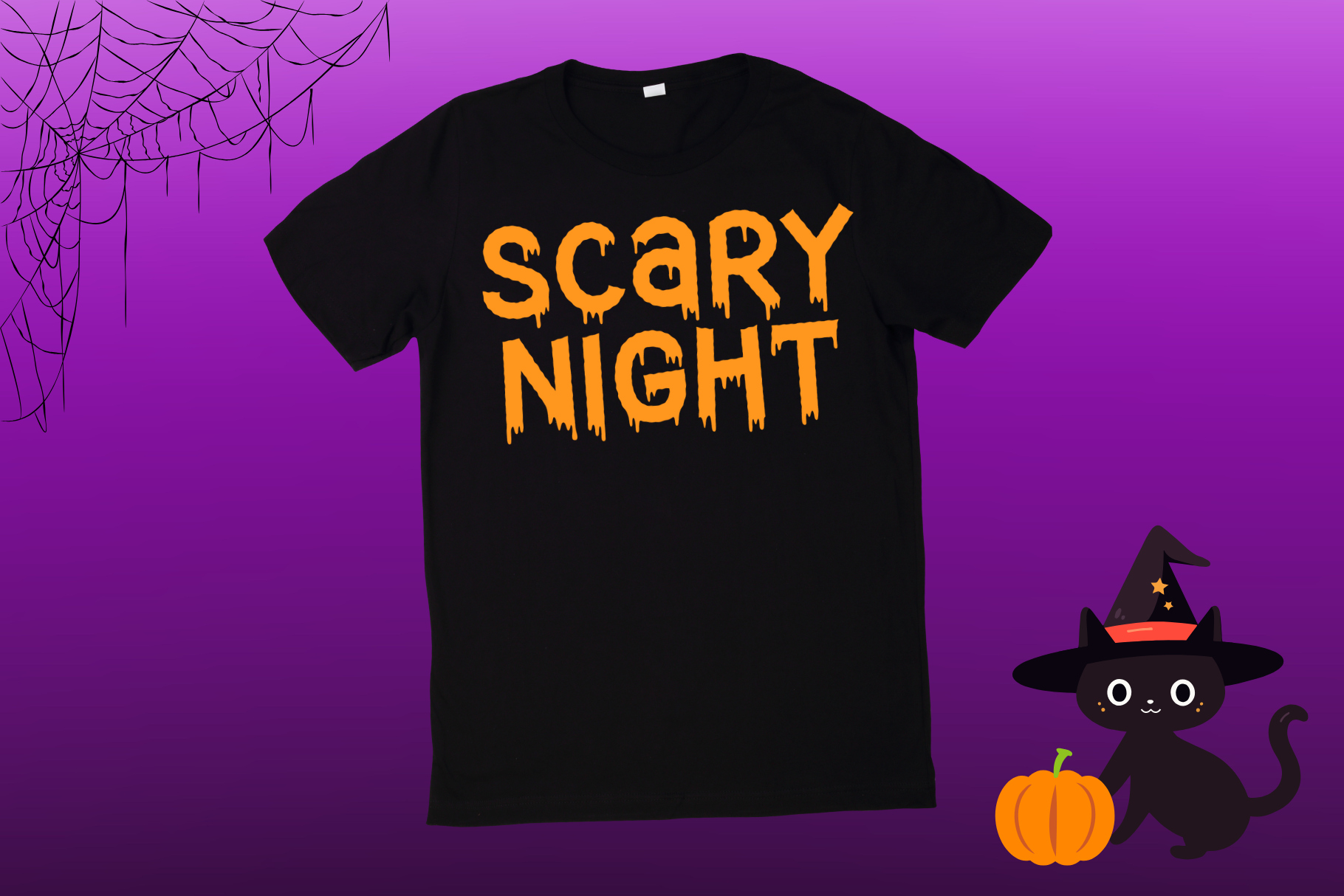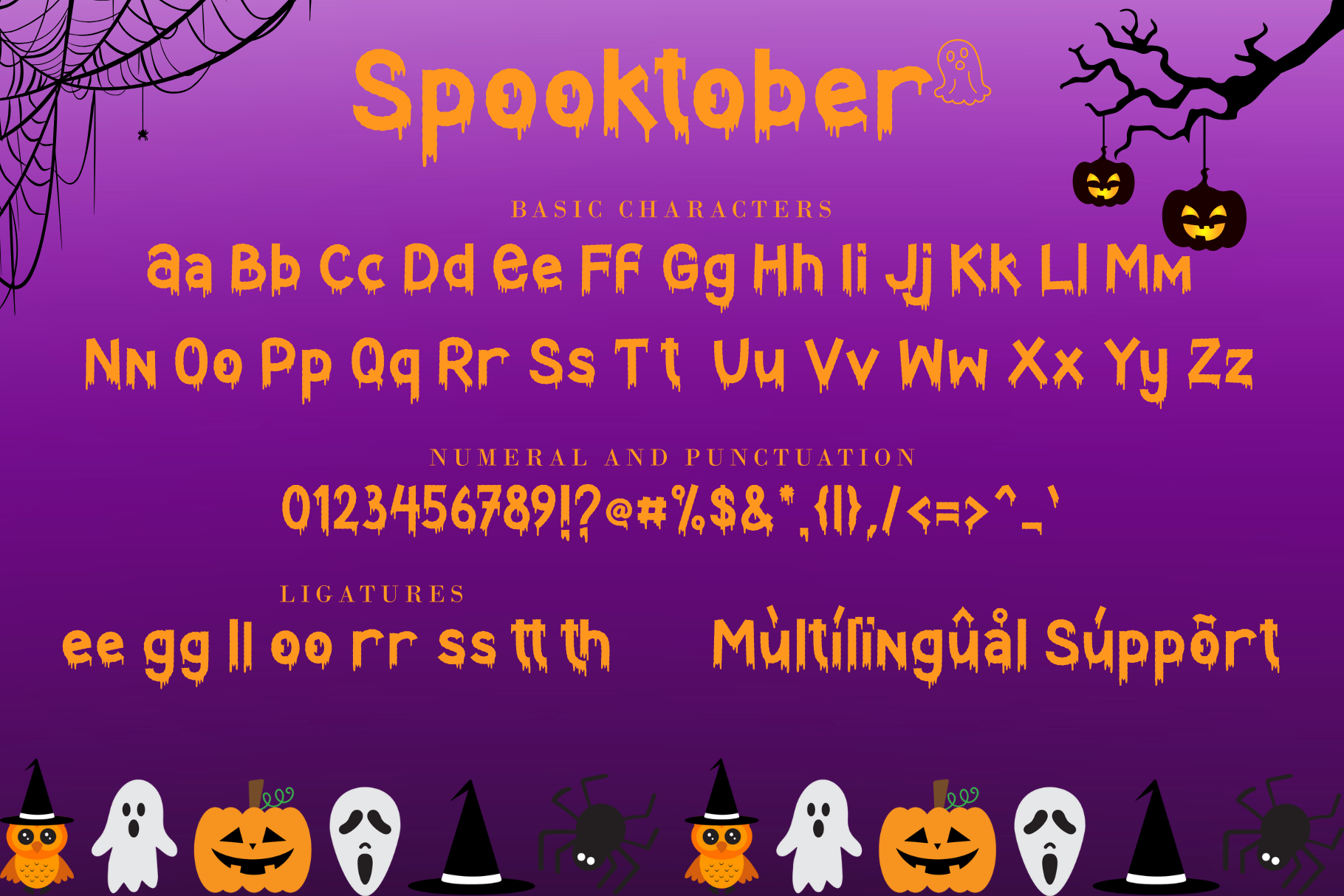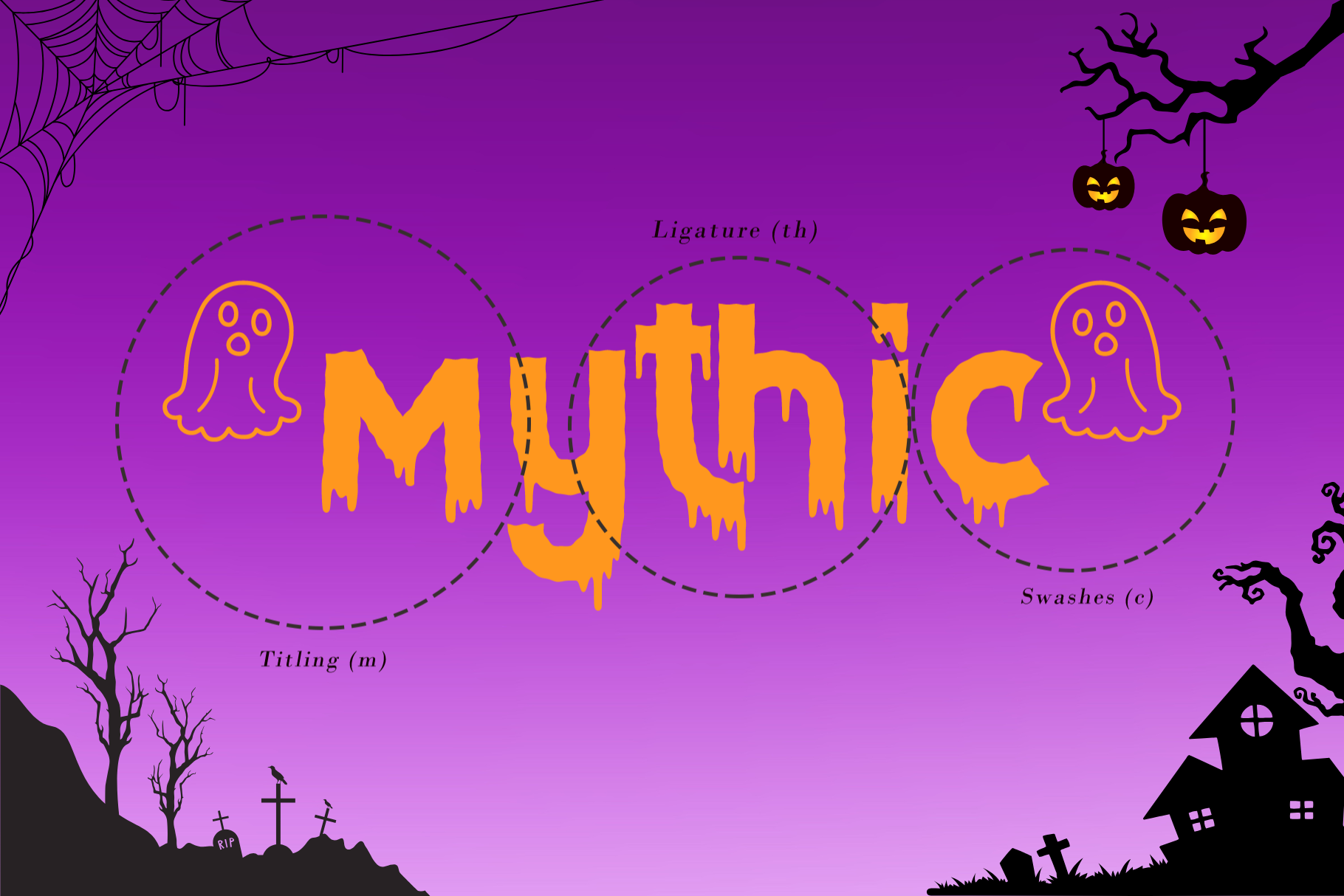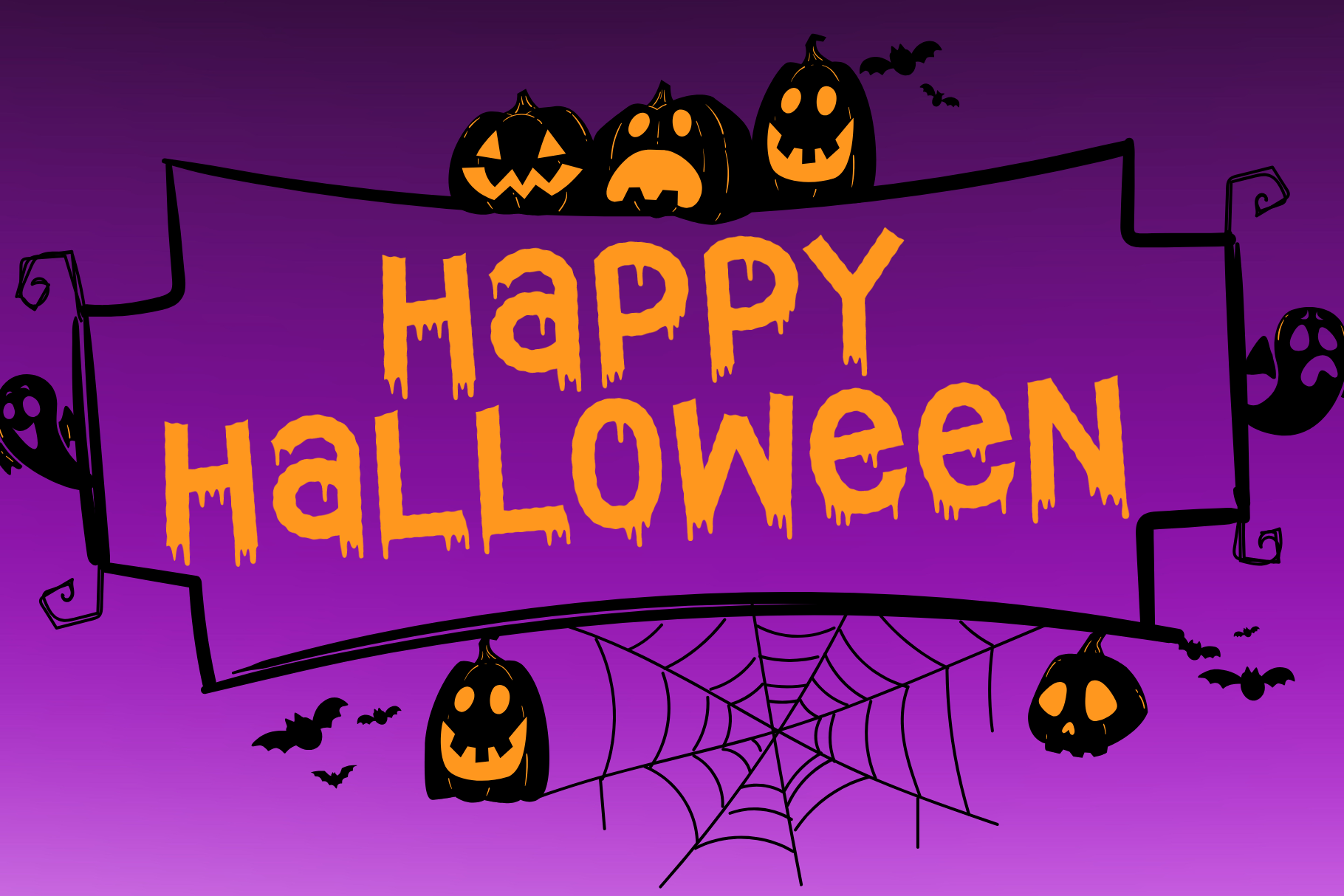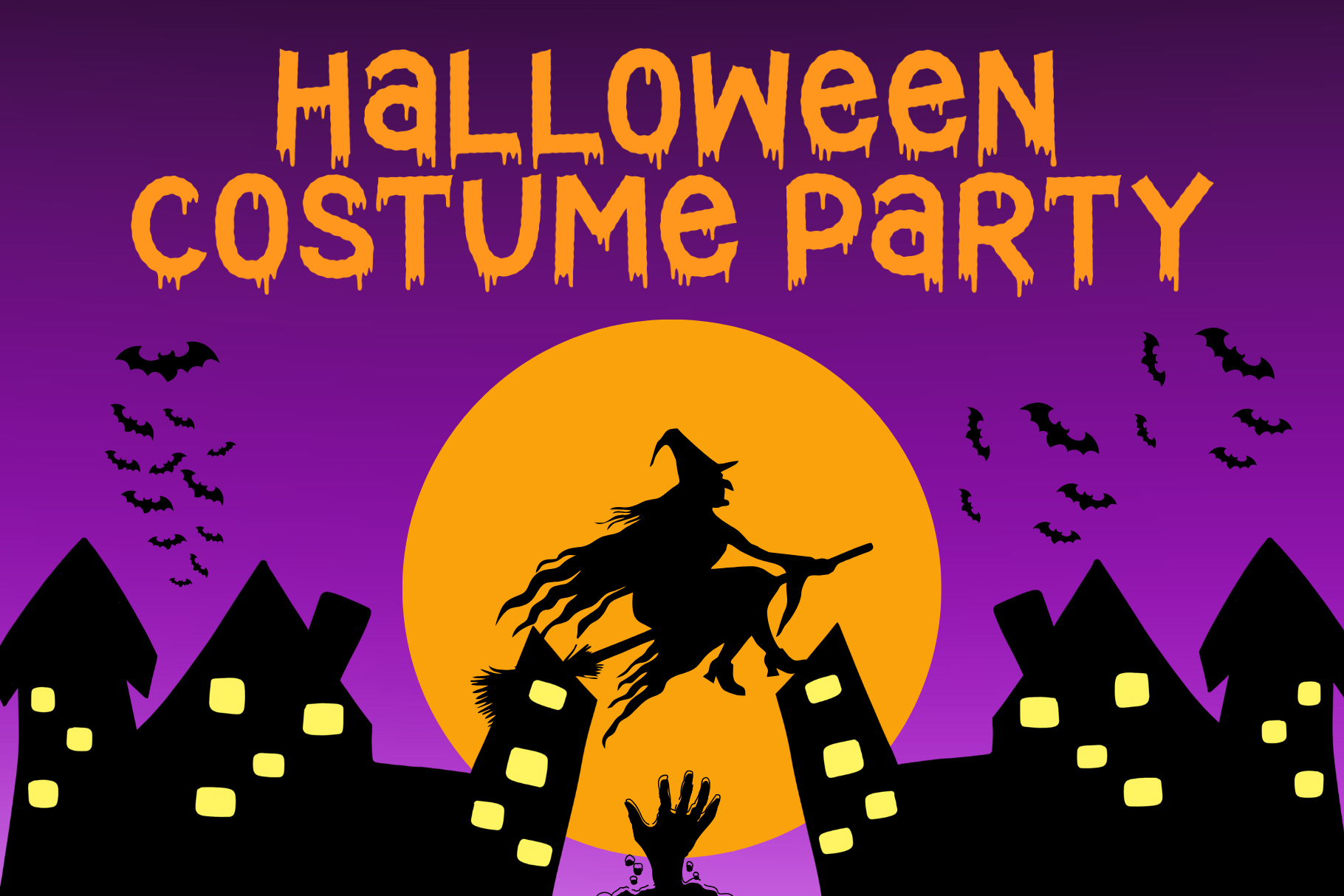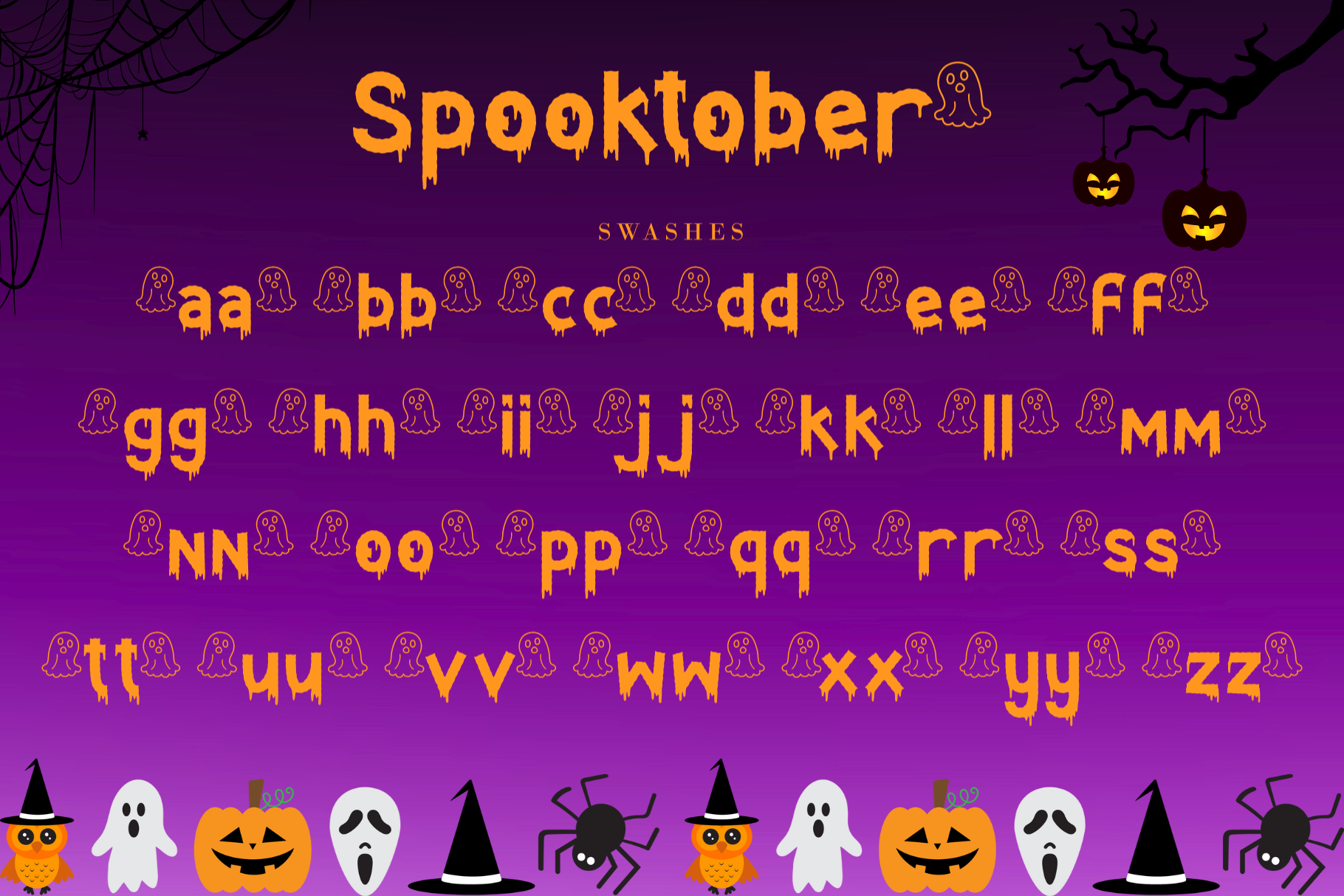
Say hello to Spooktober, the quirky, dripping display font designed to celebrate the spooky side of October.
Inspired by haunted houses, ghostly vibes, and the playful fun of trick-or-treating, this font is bold, unique, and instantly recognizable. Every letter drips, making your designs feel both spooky and fun at the same time.
Spooktober is ideal for Halloween-themed projects of all kinds. Need a bold headline for a poster? Done. Want to design invitations for your Halloween party? Easy. Seeking a distinctive touch for mugs, t-shirts, or crafting projects? Spooktober does it all. It’s versatile enough for professional designers, yet simple and fun enough for crafters and hobbyists.
One of the best aspects of this font is its ability to pair well with seasonal illustrations and colors. Use it alongside pumpkins, bats, ghosts, and cobwebs, and your designs will instantly come to life.
From digital content, such as Instagram stories, to physical projects like banners or stickers, Spooktober brings every idea to life with Halloween spirit.